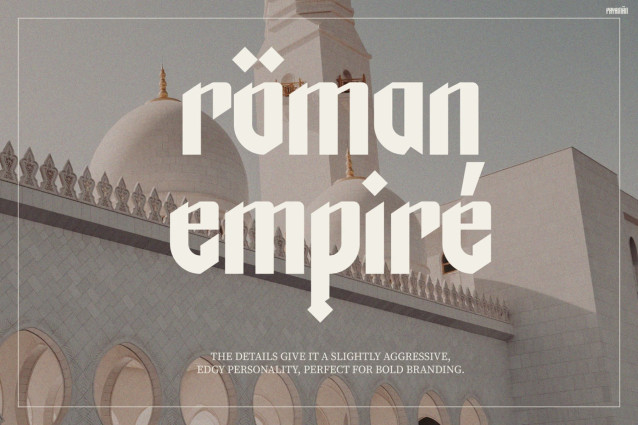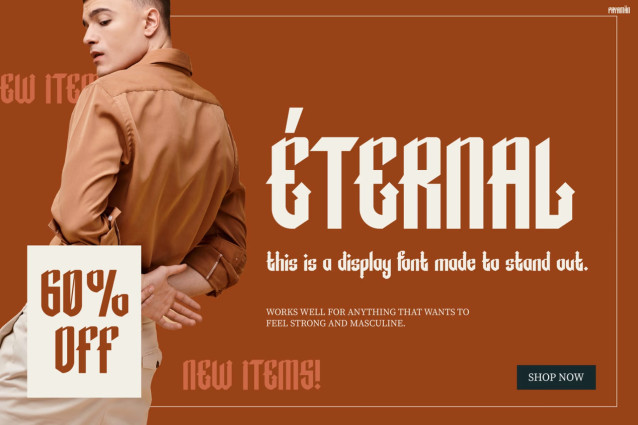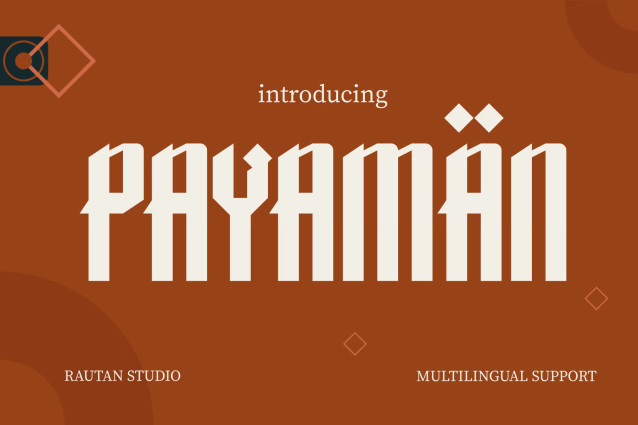
Payaman Font
Payaman Font is a bold gothic display font that blends medieval character with a sharp, modern edge. It features thick, condensed, and solid letterforms with aggressive angles and distinct diamond-shaped accents that give it a powerful, commanding presence.
Best suited to projects requiring an underground, premium energy, this typeface is a natural fit for game titles, historical book covers, music album art, streetwear apparel, product packaging, and bold event posters. Use it at large display sizes where its sharp details and compact structure can stand out.